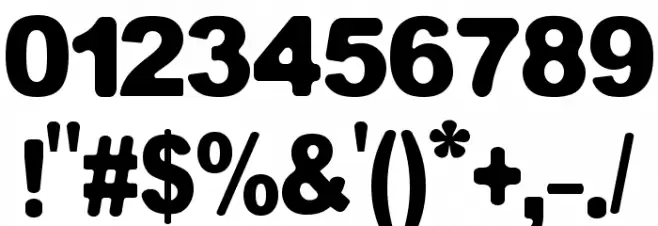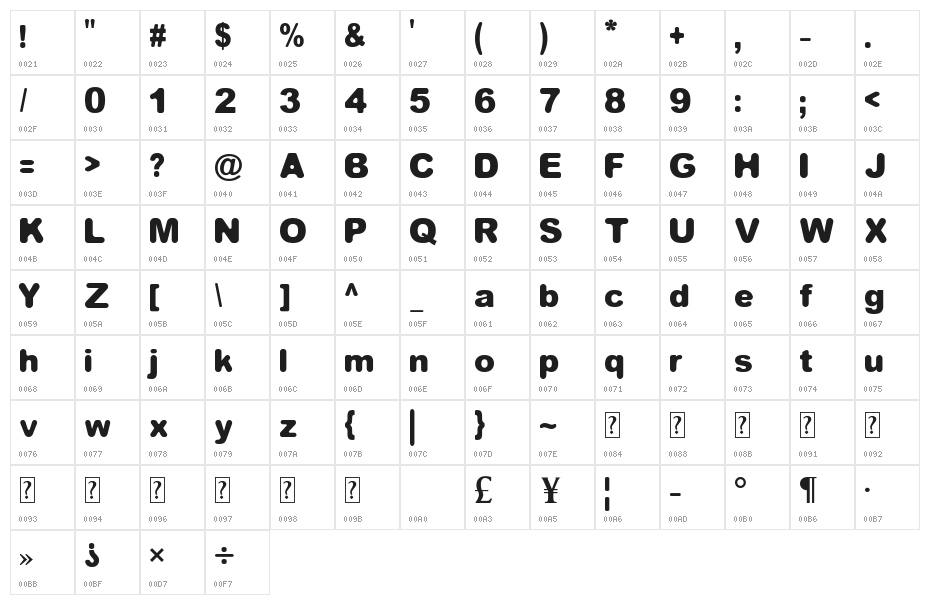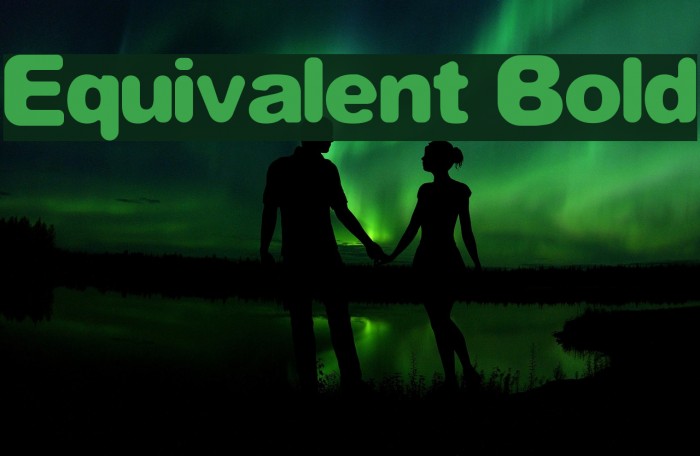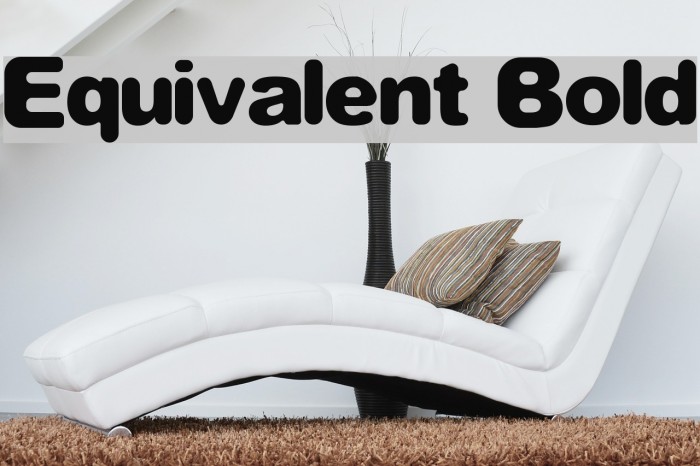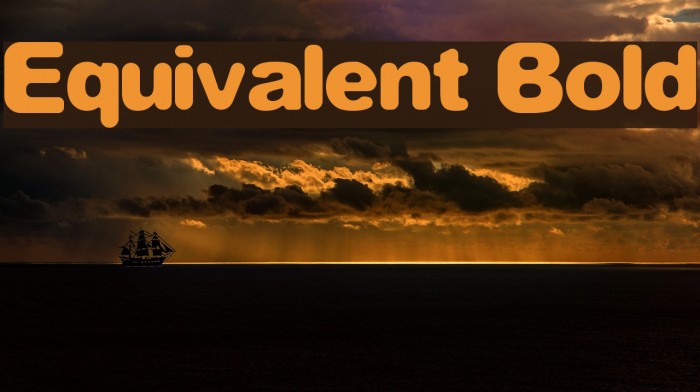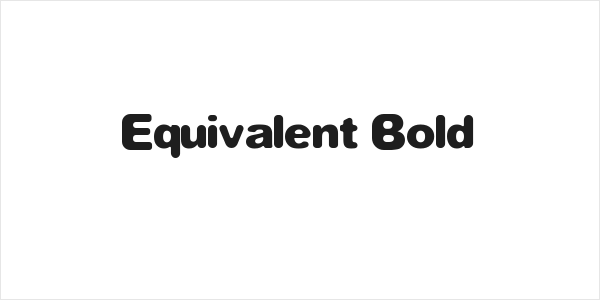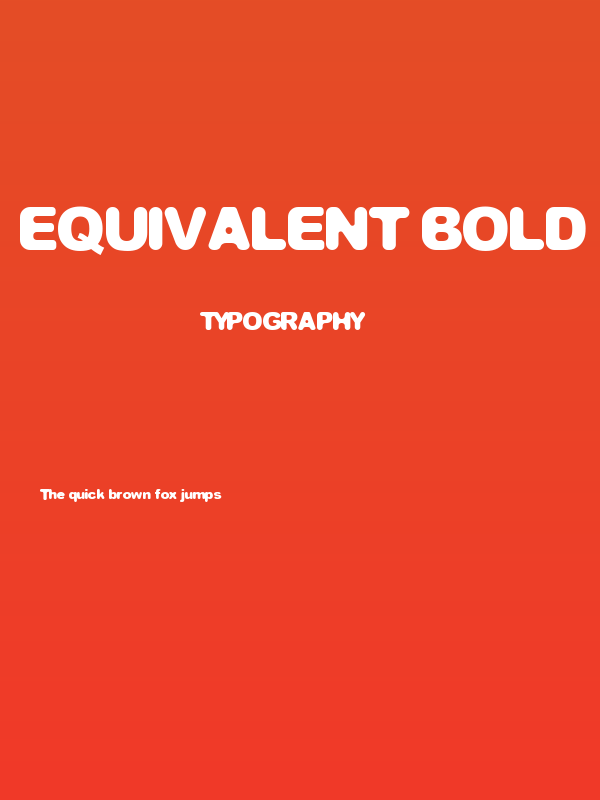
Equivalent Bold Font
Equivalent Bold Description
This font features a bold, rounded style with smooth curves and a playful appearance. The characters are uniformly thick, giving it a strong presence and making it highly legible. The rounded edges soften the overall look, adding a friendly and approachable feel. The numbers and special characters maintain the same bold and rounded characteristics, ensuring consistency across all glyphs. This font is versatile, suitable for both digital and print media, and can effectively draw attention due to its boldness and clarity.
| Proposed Projects | Ideal for children's books, playful branding, posters, and headlines that require a bold and friendly touch. |